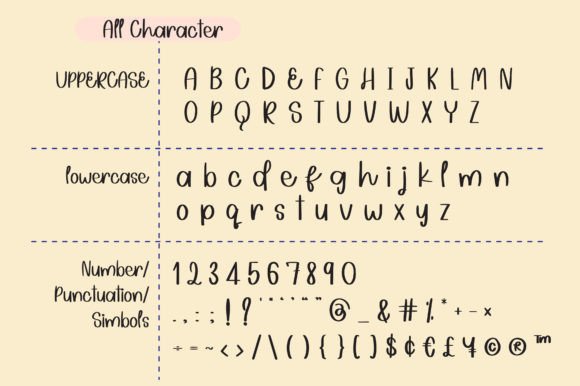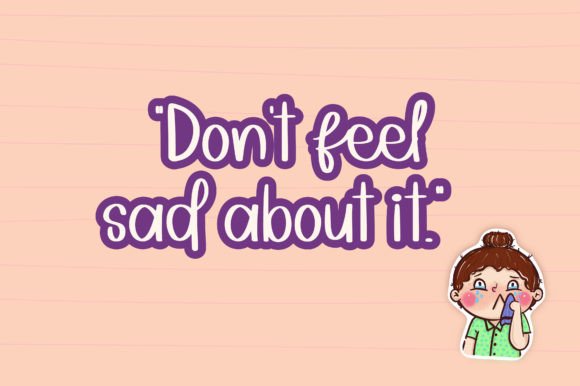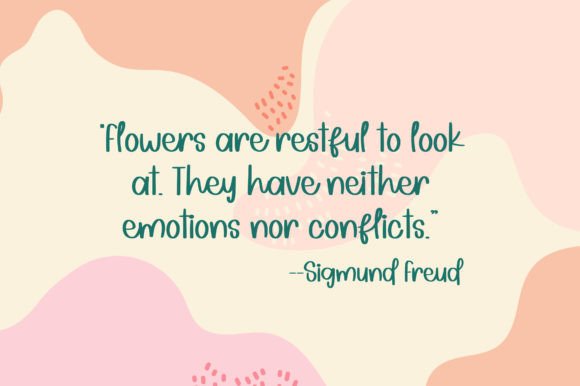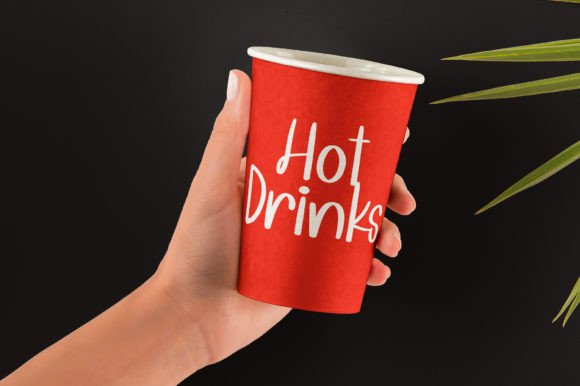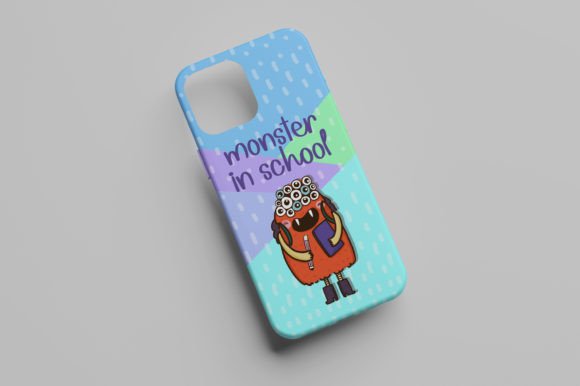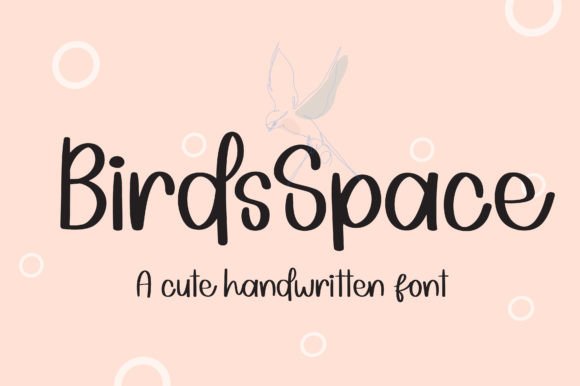
BirdsSpace Font: The Ultimate Handwritten Typeface for Digital Planning and Note-Taking
Are you a designer, crafter, or simply a digital note-taker looking for a font that can add a personal touch to your digital plans, notes, and journals? Look no further than BirdsSpace Font, a beautiful handwritten typeface that’s perfect for digital planning, note-taking, and more.
What is BirdsSpace Font?
BirdsSpace Font is a cute display handwritten font that’s designed to bring a touch of personality to your digital creations. This font is perfect for those who love handwritten notes, digital journals, and planners. With its neat and simple handwriting style, BirdsSpace Font is ideal for creating digital study notes, collage notes, and more.
Key Features of BirdsSpace Font
- Handwritten style: BirdsSpace Font has a beautiful, handwritten style that’s perfect for adding a personal touch to your digital creations.
- Cute and playful: This font is designed to be cute and playful, making it perfect for digital planning, note-taking, and journals.
- Digital note-taking: BirdsSpace Font is optimized for digital note-taking, making it easy to read and write with.
- Multi-purpose: This font can be used for a variety of purposes, including digital planning, note-taking, journals, and more.
- Easy to read: BirdsSpace Font is designed to be easy to read, even at small sizes.
BirdsSpace Font is perfect for designers and crafters who love creating digital content. Whether you’re creating digital planners, journals, or notes, this font is sure to add a touch of personality to your creations. With its simple and neat handwriting style, BirdsSpace Font is also great for creating digital study notes, collage notes, and more.
Use Cases for BirdsSpace Font
- Digital planning: Use BirdsSpace Font to create beautiful digital planners that are both functional and stylish.
- Note-taking: This font is perfect for digital note-taking, making it easy to take notes and organize your thoughts.
- Digital journals: BirdsSpace Font is great for creating digital journals that are both personal and stylish.
- Collage notes: Use this font to create beautiful collage notes that are both fun and functional.
- Study notes: BirdsSpace Font is perfect for creating digital study notes that are easy to read and understand.
- Font type: Handwritten typeface
- Font style: Cute display handwritten
Why Choose BirdsSpace Font?
- Unique style: BirdsSpace Font has a unique and stylish handwritten style that’s sure to stand out.
- Easy to read: This font is designed to be easy to read, even at small sizes.
- Multi-purpose: BirdsSpace Font can be used for a variety of purposes, including digital planning, note-taking, and journals.
If you’re looking for a beautiful handwritten typeface for your digital creations, look no further than BirdsSpace Font. With its cute and playful style, this font is perfect for digital planning, note-taking, and more. Whether you’re a designer, crafter, or simply a digital note-taker, BirdsSpace Font is sure to add a touch of personality to your digital creations.